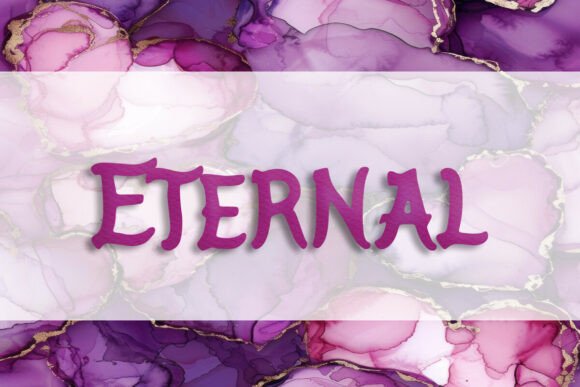
The Timeless Allure of Eternal Font: A Designer’s Best Friend
I’ll never forget the time I was working on a project for a client who needed a sophisticated font for their branding and magazine layouts. I had tried countless fonts, but none seemed to fit the bill. That was until I stumbled upon the Eternal font. Its elegant lines and versatile design instantly captured my attention, and I knew I had found the perfect fit. In this article, I’ll share my experience with the Eternal font, its features, and how to make the most of it in various design applications.
An Honest Review of Eternal Font
- ✨ Versatility: Eternal font is superb for creating a wide range of designs, from t-shirt designs and stickers to branding, magazine layouts, and greeting cards.
- ✅ Timeless appeal: The font’s classic design ensures it won’t go out of style anytime soon, making it a great investment for designers and crafters.
- 💫 Distinct charm: Eternal font has a unique personality that adds a touch of sophistication to any design.
While Eternal font is an excellent choice for many design projects, there are a few things to keep in mind:
- 🤔 Glyph limitations: Some users have reported that the font could benefit from a more extensive glyph set, particularly for non-English languages.
- ⚠️ Overuse: As with any popular font, there’s a risk of overusing Eternal font. Make sure to balance it with other design elements to avoid a clichéd look.
- Experiment with OpenType features, such as Stylistic Alternates and Swashes, to add visual interest to your design.
The Story Behind Eternal Font
Eternal font was designed with the goal of creating a timeless, versatile font that could be used in a wide range of applications. The designer, inspired by classic typography and modern design trends, crafted Eternal font to be a sophisticated and elegant choice for designers and crafters.
Q: What is Eternal font?
Eternal font is a sophisticated, versatile font designed for a wide range of applications, including branding, magazine layouts, and greeting cards.
Q: Is Eternal font suitable for digital use?
Yes, Eternal font is perfect for digital use, including social media posts, presentations, and user interfaces.
Q: Is Eternal font easy to read?
Yes, Eternal font is designed to be highly legible, making it suitable for body text and long-form content.